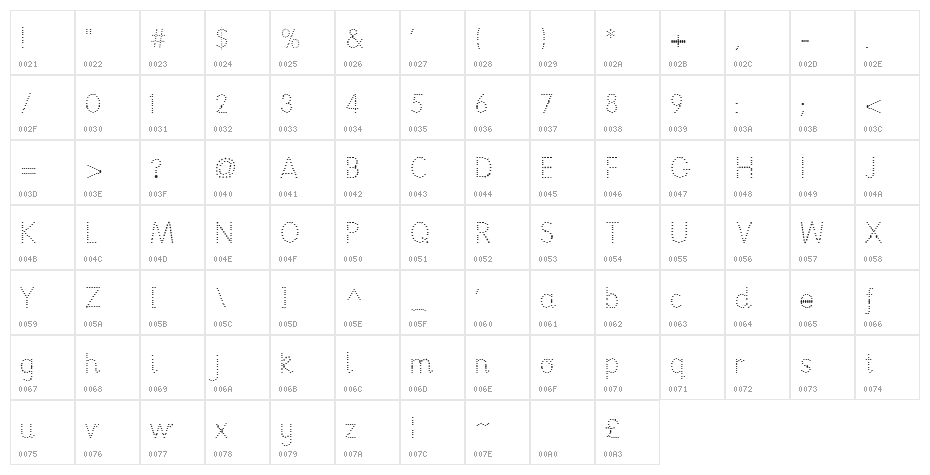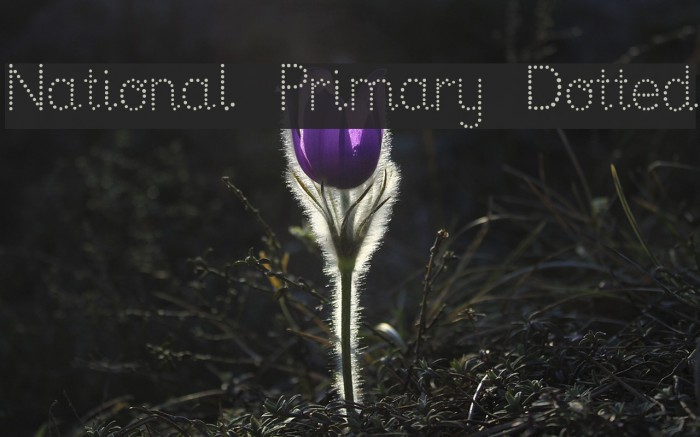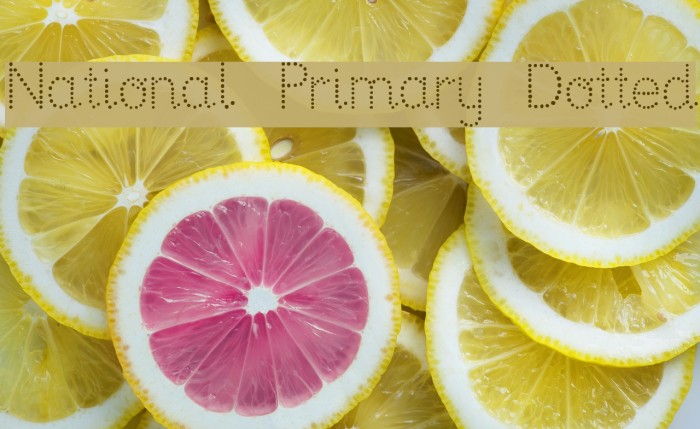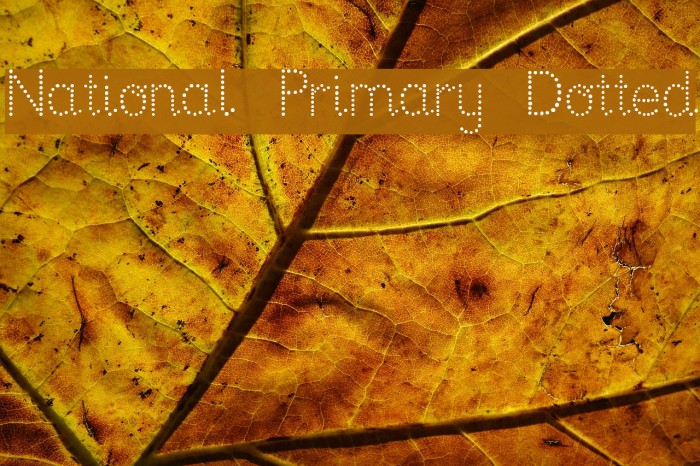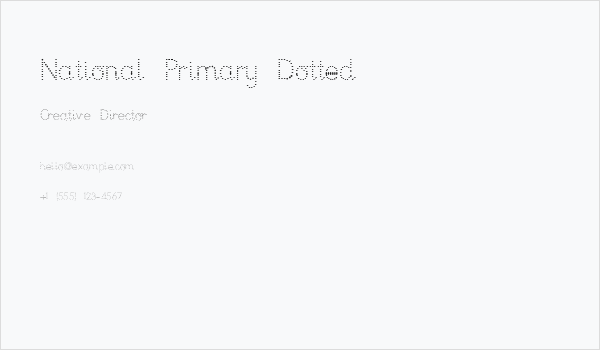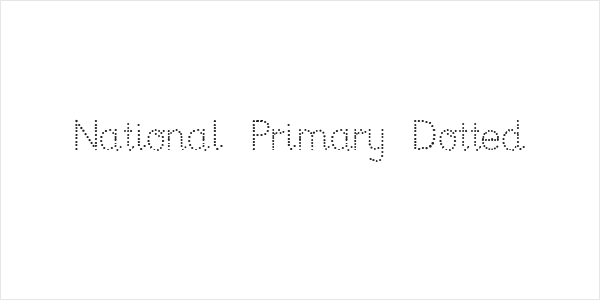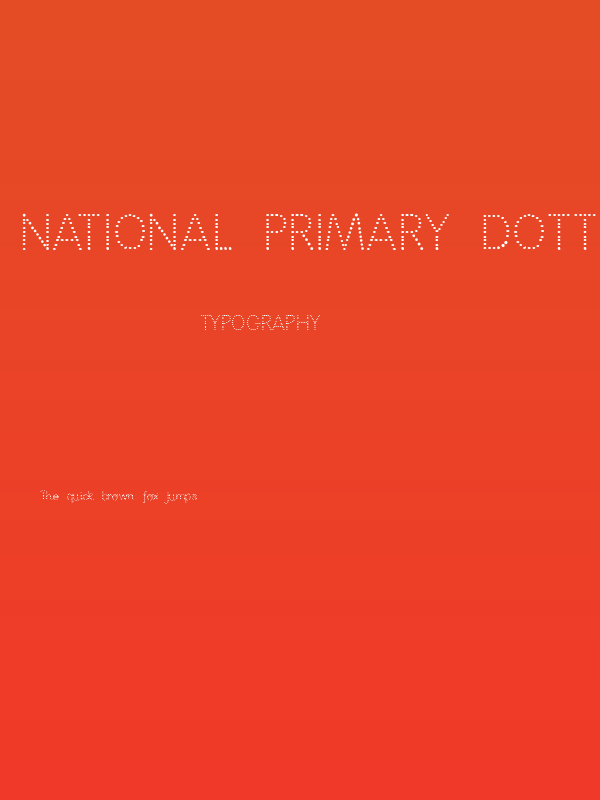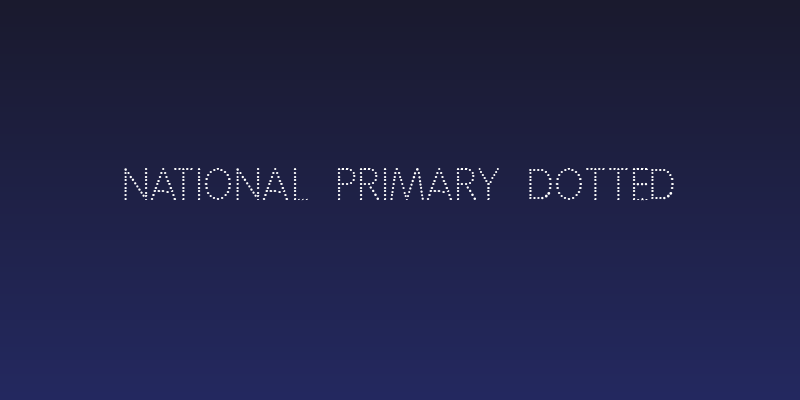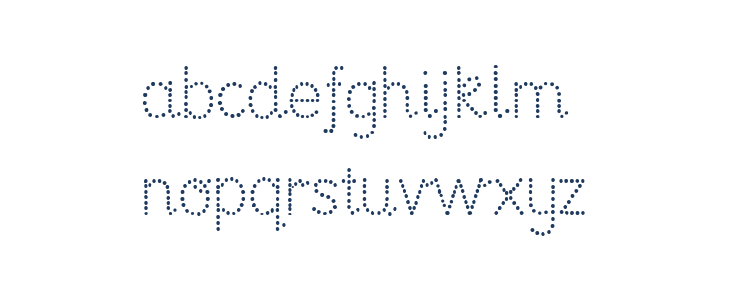
National Primary Dotted Font
National Primary Dotted Description
This font features a unique dotted style, where each character is formed by a series of evenly spaced dots. The uppercase and lowercase letters maintain a consistent alignment and spacing, creating a uniform appearance. The numbers and special characters follow the same dotted pattern, ensuring a cohesive look across all elements. This design is reminiscent of educational or instructional materials, often used in teaching environments to help with letter formation and recognition. The overall aesthetic is playful yet functional, making it suitable for a variety of creative applications.
| Use Case | Educational materials, Creative projects |
| Proposed Projects | This font is perfect for educational materials, children's books, playful branding, and creative design projects that require a unique and engaging typeface. |